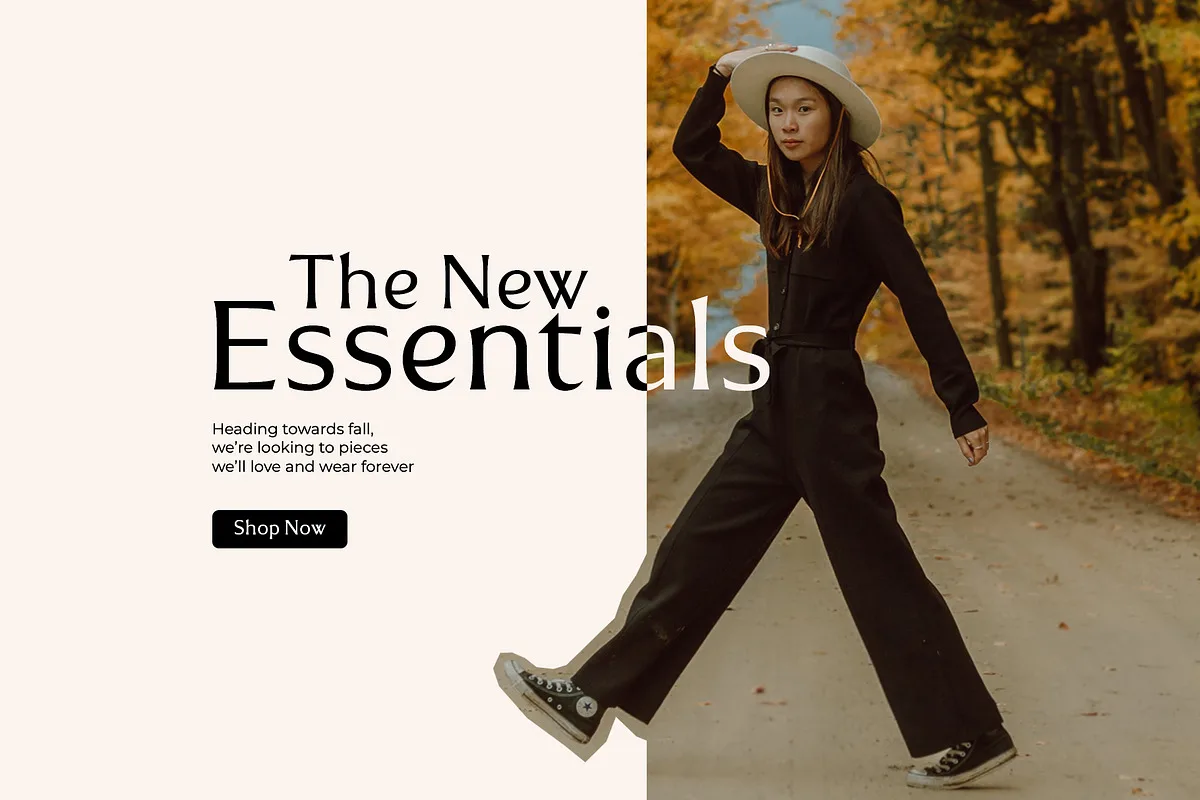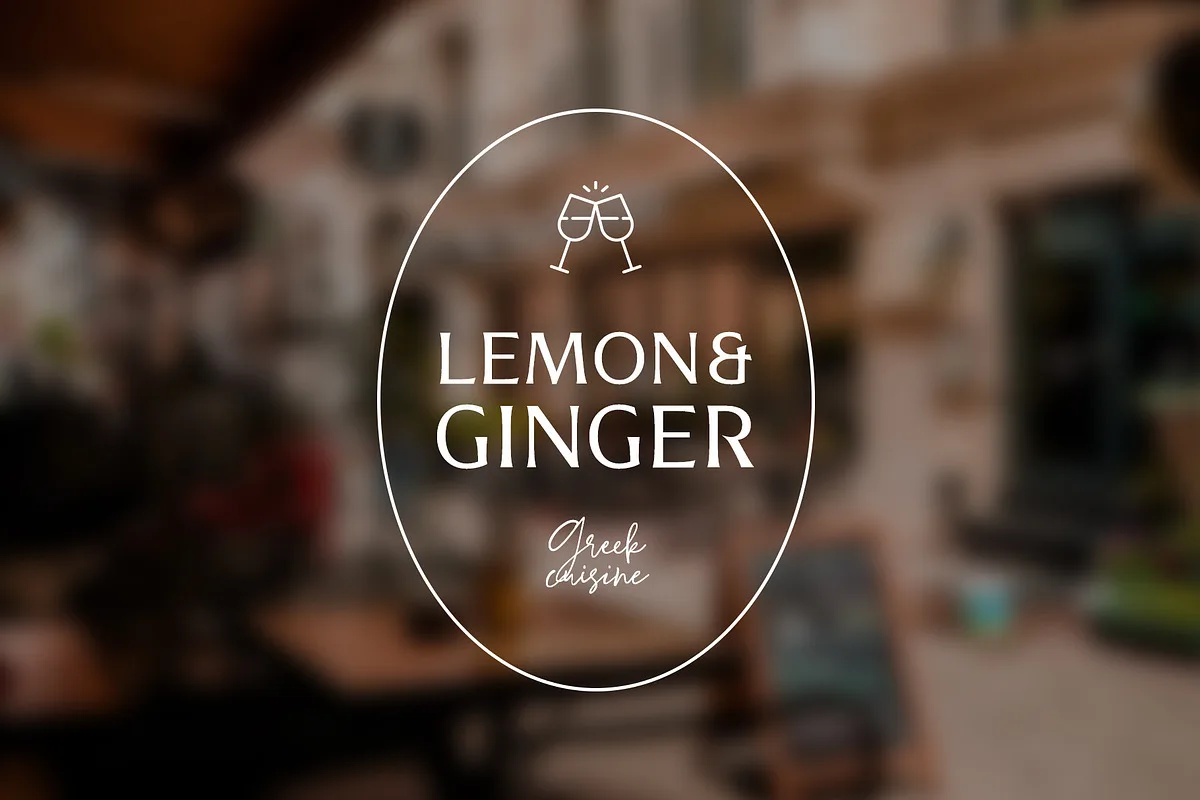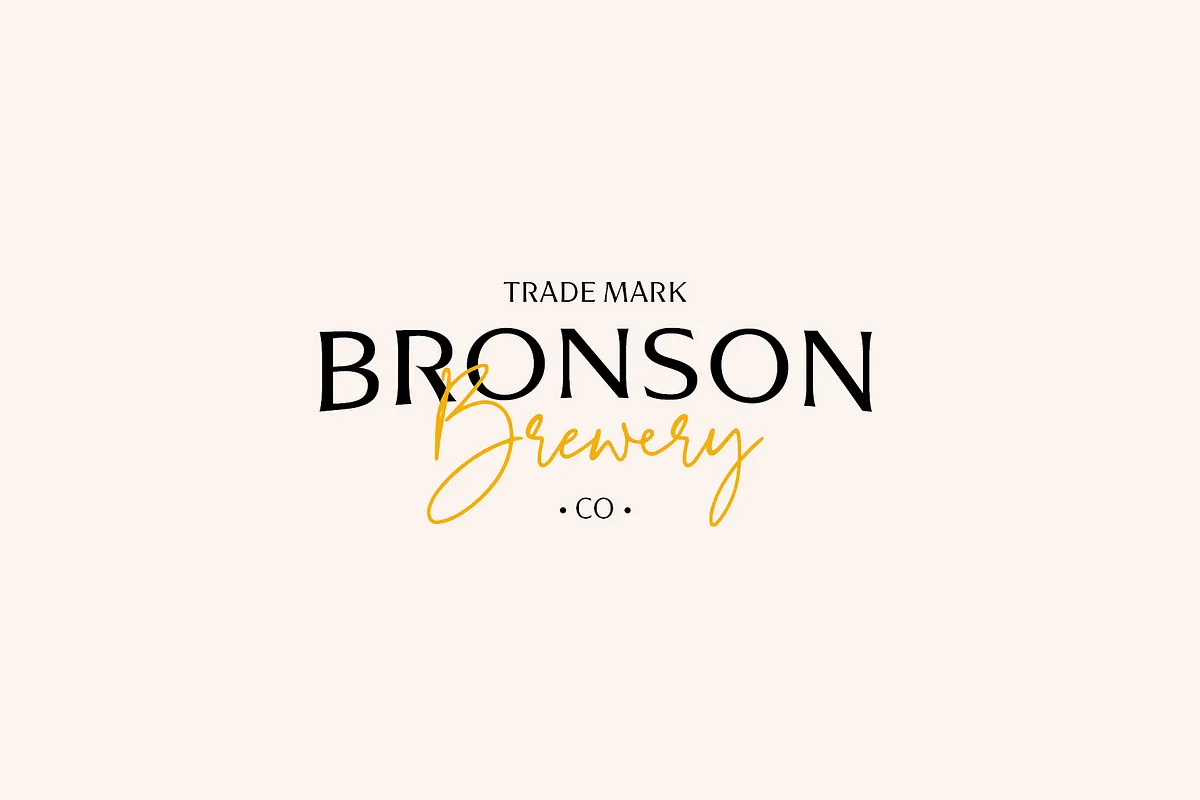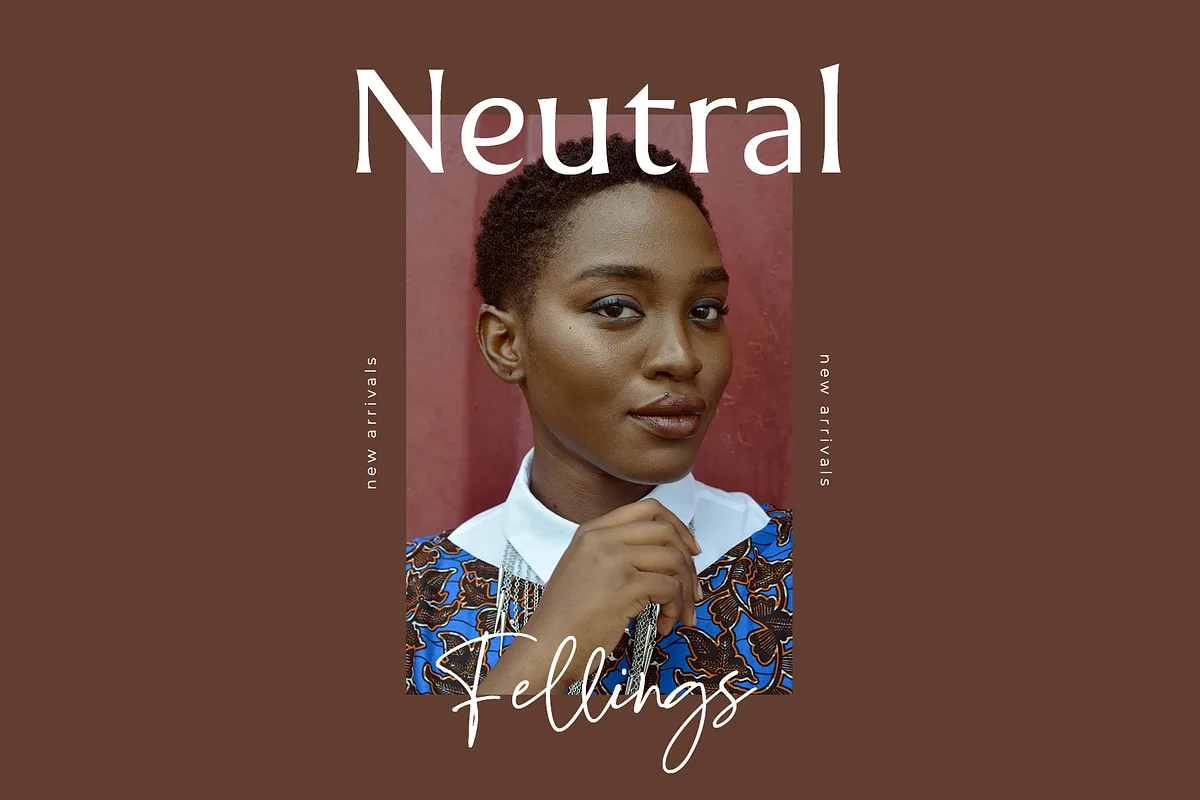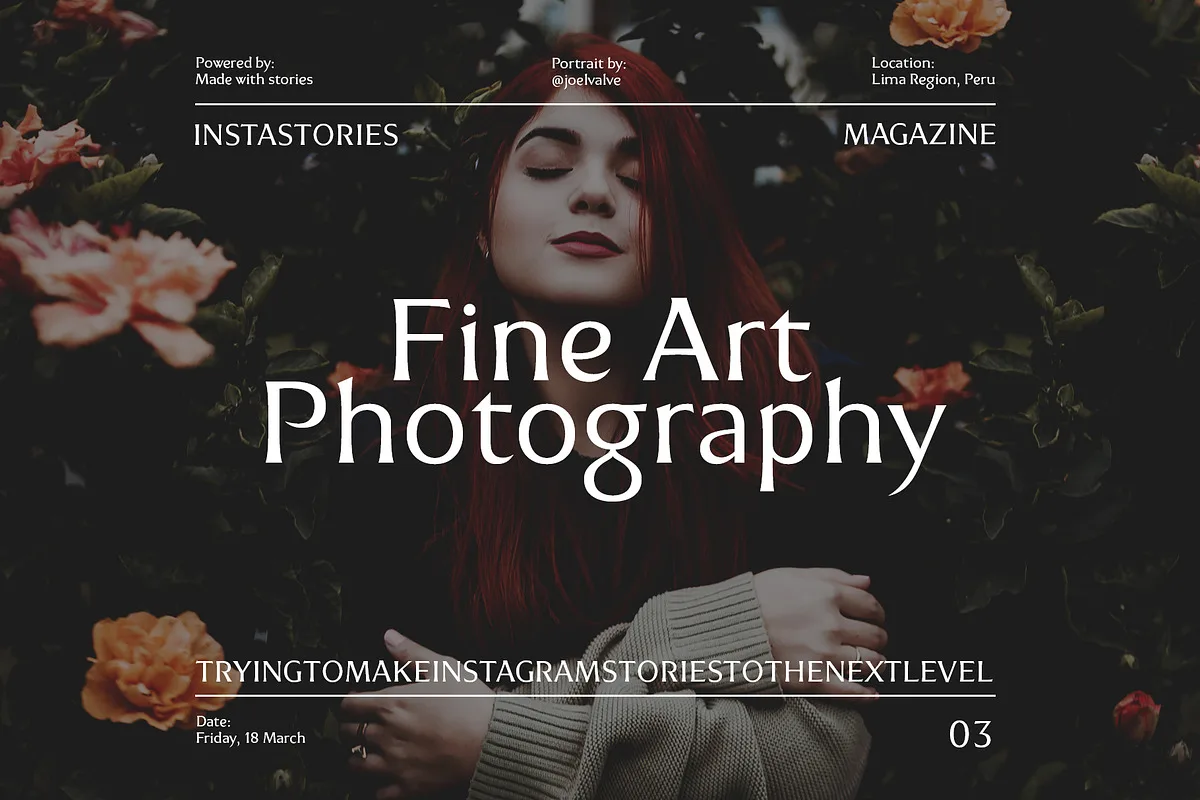
Radellin is a modern serif with vintage charm, fashionable appearance with a touch of retro. Quick access – using the built-in OPEN TYPE functions. Just add “-” or “_” to the letter and instantly get an alternative. This feature works in most applications. Font is an open type with clean shapes and precise kerning. It includes ligatures encoded by the PUA. Language support: All European languages.